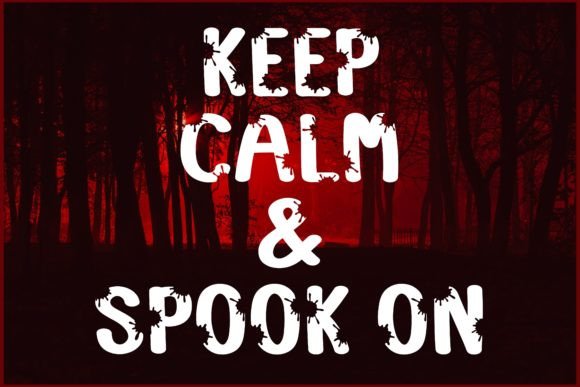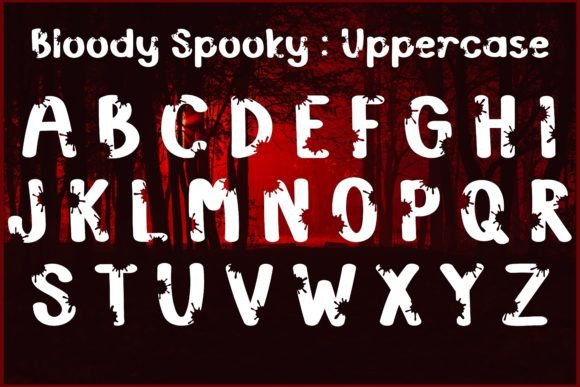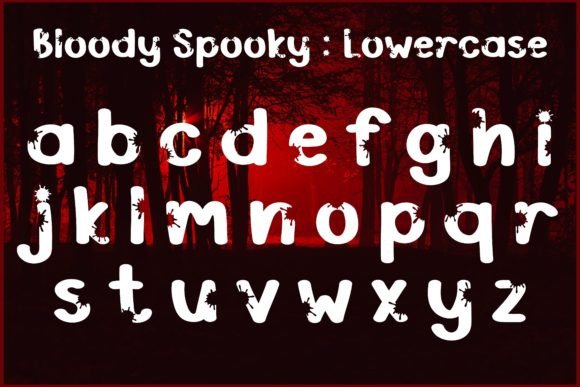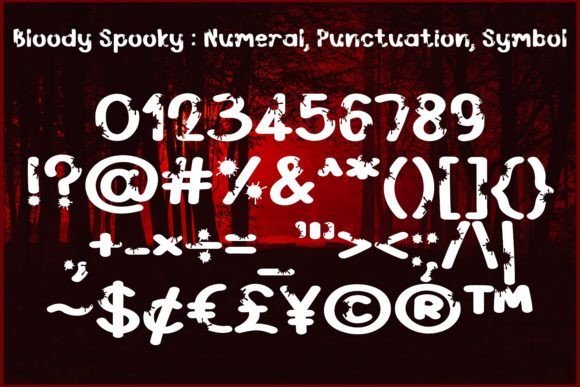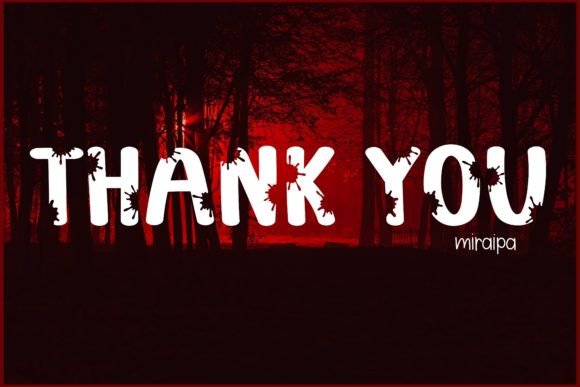
Bloody Spooky Font: The Ultimate Decorative Font for Halloween and Horror-Themed Projects
Are you looking for a font that will add a touch of spookiness to your Halloween or horror-themed projects? Look no further than the Bloody Spooky font. This scary yet fun decorative font is perfect for designers and crafters who want to create eye-catching and eerie designs. With its spooky character and bloody spots, Bloody Spooky is sure to make your projects stand out.
What is Bloody Spooky Font?
Bloody Spooky is a decorative font that features a spooky and eerie design. The font is characterized by its bold and distressed letters, with bloody spots and splatters adding to its horror theme. The font is perfect for creating Halloween-themed designs, horror movie posters, and other spooky projects.
Key Features of Bloody Spooky Font
- Spine-tingling design: The Bloody Spooky font features a unique and eye-catching design that is sure to send shivers down the spine.
- Bloody spots and splatters: The font features bloody spots and splatters that add to its horror theme.
- Distressed letters: The letters in the Bloody Spooky font are distressed and worn, giving them a creepy and abandoned look.
- Perfect for Halloween and horror-themed projects: The Bloody Spooky font is perfect for creating Halloween-themed designs, horror movie posters, and other spooky projects.
How to Use Bloody Spooky Font
The Bloody Spooky font is easy to use and can be incorporated into a variety of projects. Here are a few ideas for using the font:
- Halloween-themed designs: Use the Bloody Spooky font to create spooky Halloween-themed designs, such as invitations, posters, and party decorations.
- Horror movie posters: The Bloody Spooky font is perfect for creating horror movie posters and other spooky movie-themed designs.
- Crafting projects: The font can be used in a variety of crafting projects, such as scrapbooking, card making, and DIY decorations.
Benefits of Using Bloody Spooky Font
There are several benefits to using the Bloody Spooky font in your projects. Here are a few:
- Unique and eye-catching design: The Bloody Spooky font features a unique and eye-catching design that is sure to grab attention.
- Easy to use: The font is easy to use and can be incorporated into a variety of projects.
- Perfect for Halloween and horror-themed projects: The Bloody Spooky font is perfect for creating Halloween-themed designs, horror movie posters, and other spooky projects.
Tips for Getting the Most Out of Bloody Spooky Font
Here are a few tips for getting the most out of the Bloody Spooky font:
- Use it sparingly: Use the Bloody Spooky font sparingly to create a bigger impact. Overusing the font can make your designs look cluttered and overwhelming.
- Pair it with other fonts: Pair the Bloody Spooky font with other fonts to create a unique and eye-catching design.
- Experiment with different colors: Experiment with different colors to find the perfect combination for your design.
The Bloody Spooky font is a scary yet fun decorative font that is perfect for Halloween and horror-themed projects. With its spooky character and bloody spots, this font is sure to make your projects stand out. Whether you’re a designer or crafter, the Bloody Spooky font is a great addition to your font collection. So why not give it a try and see what spooky creations you can come up with?